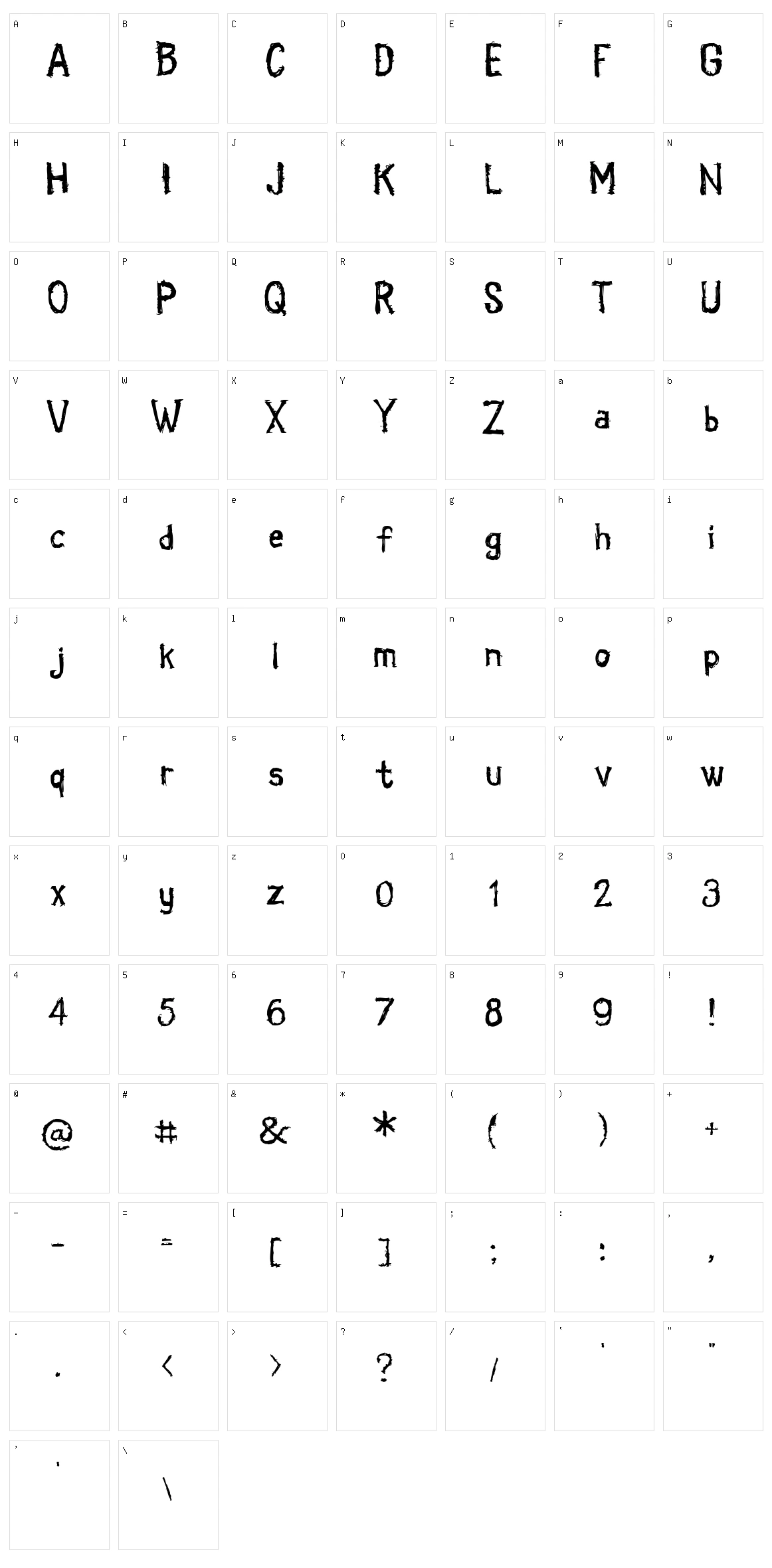
The free font Coldbringer KG is carefully designed by Hybrid Space, showcasing a thoughtful balance of creativity and usability and falls under the Trash font style. When you download the ZIP file, it contains only 42.94 KB of font files, making it lightweight and quick to download. Please review the license details below to understand permitted usage and distribution rights. If license information is not available, we recommend using this font for personal projects only or contacting the author directly for commercial usage permissions.